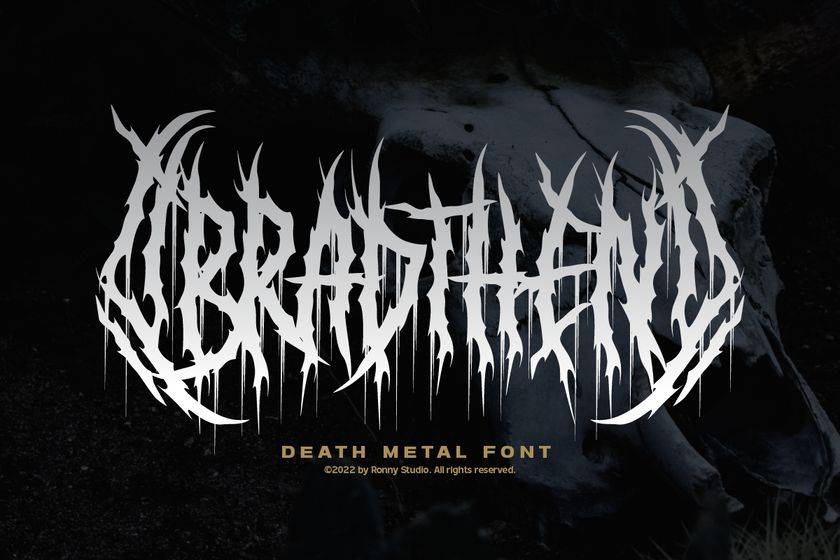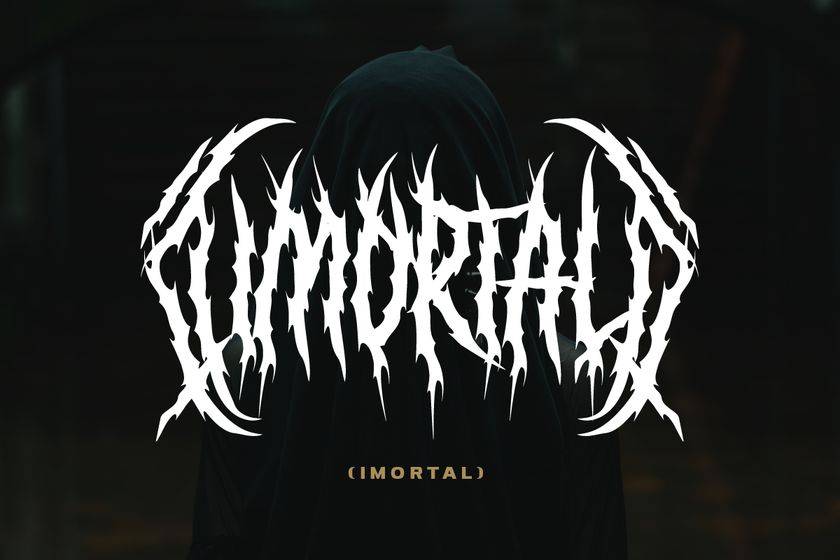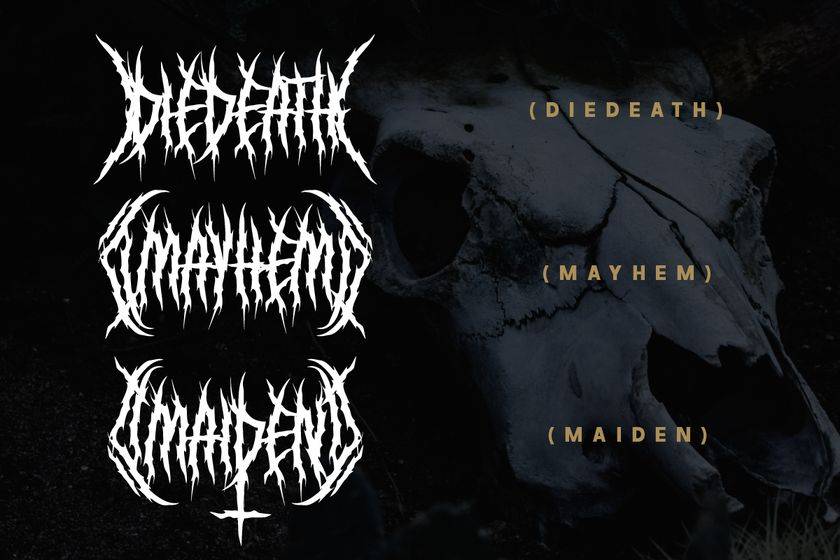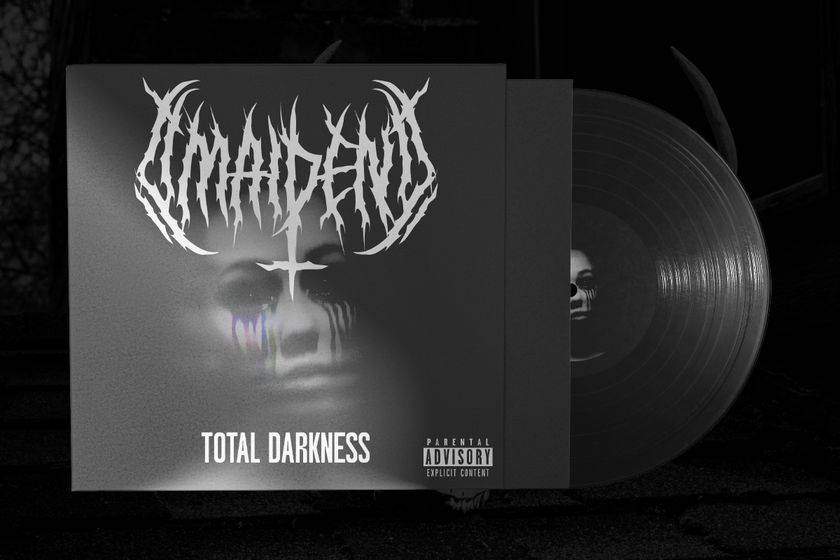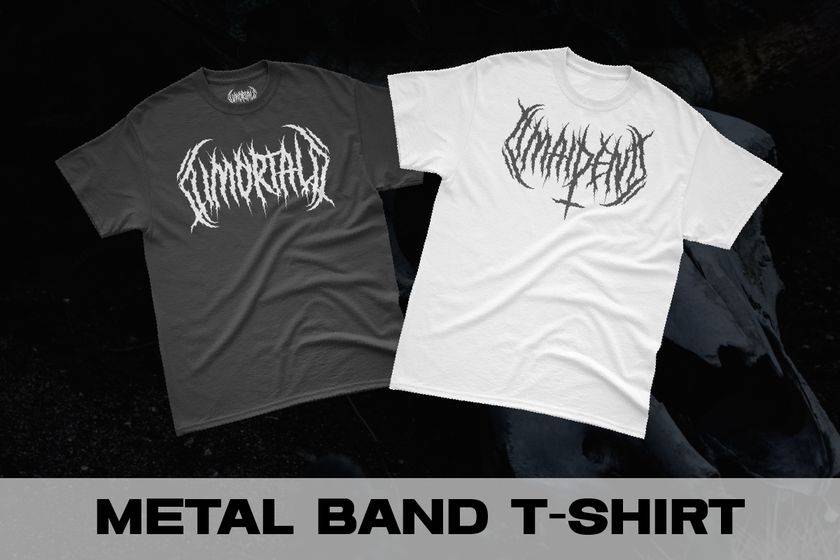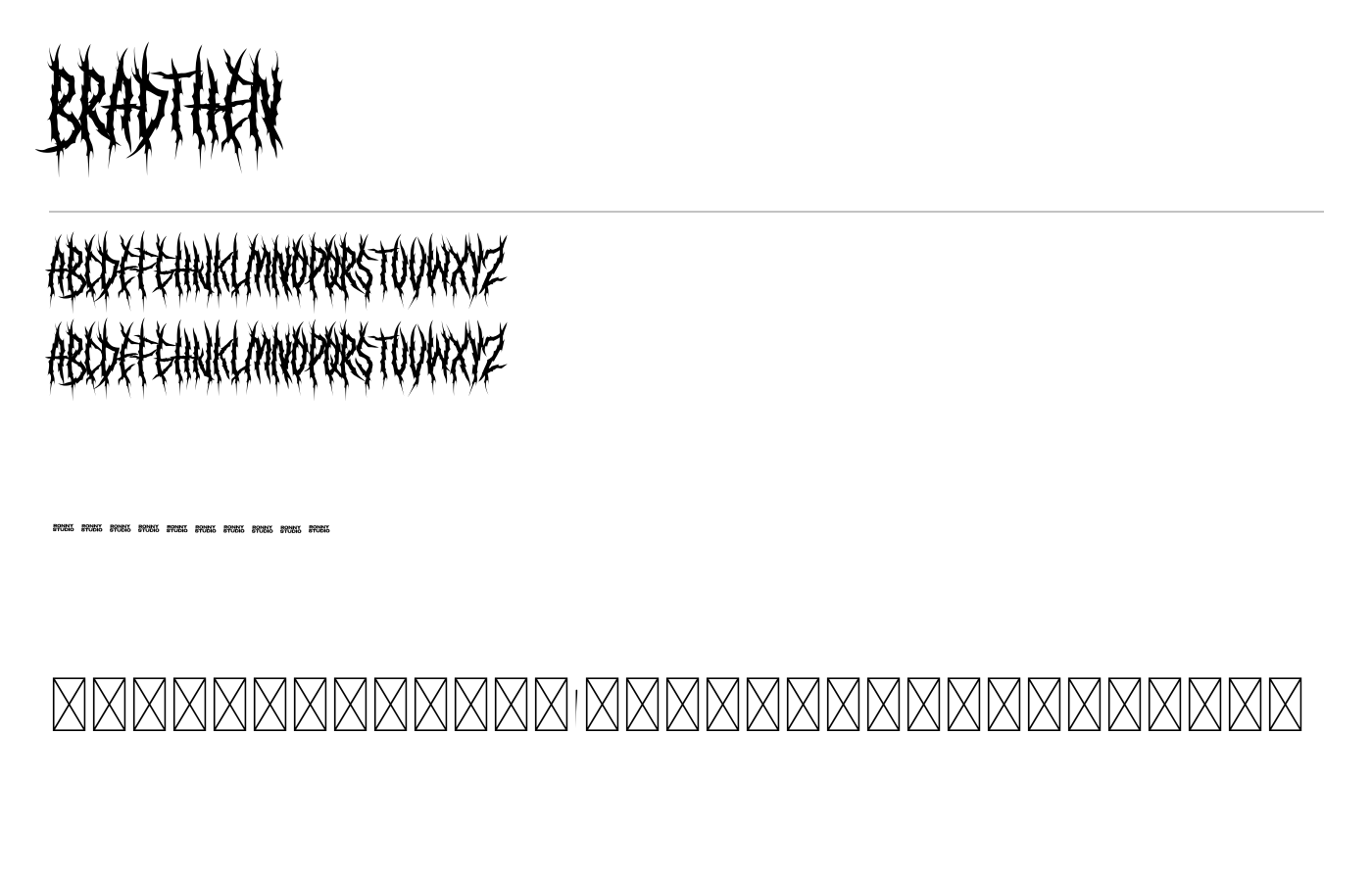
Bradthen is a highly stylized display font characterized by its sharp, spiky edges and condensed letterforms that create a dark, edgy atmosphere. With its unique, jagged strokes and high contrast in line weight, this font is perfect for attention-grabbing headlines, logos, or designs in genres like horror, metal music, or extreme sports, where a bold, rebellious vibe is desired. Its distinct look makes it less suited for body text but ideal for making a striking visual impact.
Bradthen Font
About Bradthen Font
| Font family | Bradthen Font |
| Designer | Rony Rizki Jaya |